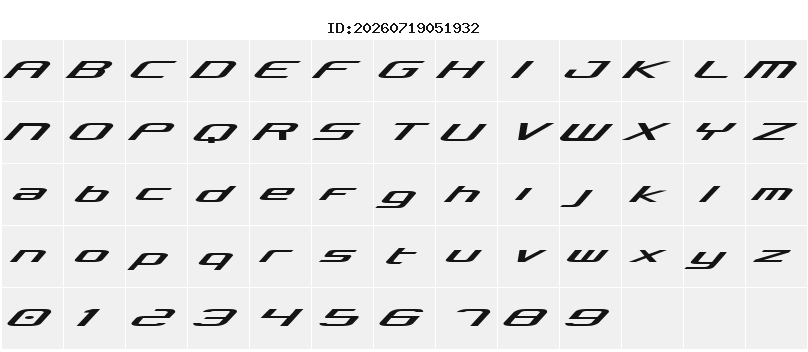
• Font Name: Concielian Expanded
About Concielian Expanded.ttf
Concielian Expanded.ttf is a modern, elegant sans-serif font designed for ultimate readability and visual harmony. Perfect for branding, headlines, web design, and print materials.